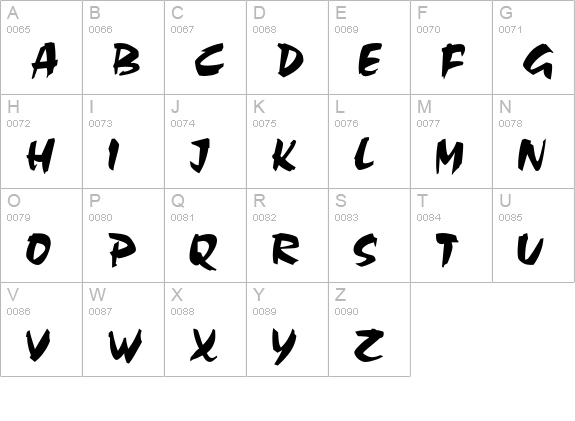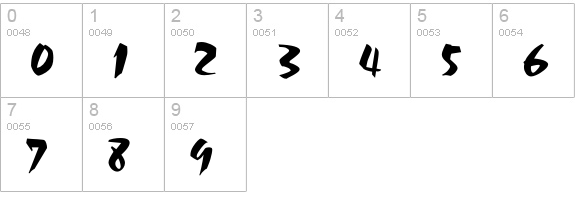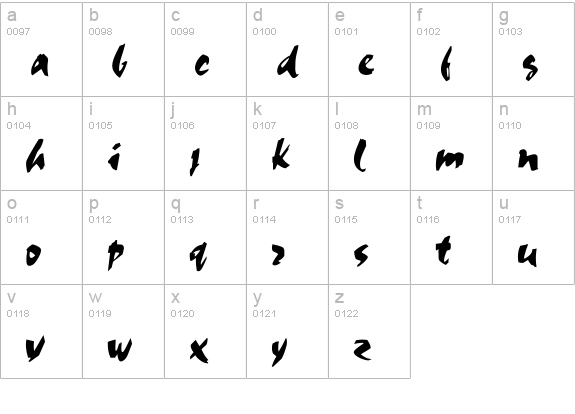
Acapulco Font Details
Acapulco font is a stunning display typeface that exudes elegance and sophistication. Its sleek and modern design makes it perfect for a wide range of projects, from branding to editorial design. With its unique and eye-catching letterforms, Acapulco font is sure to make your text stand out and leave a lasting impression. The best part? Acapulco font is completely free to download at FontsMarket.com. Whether you're a designer looking to add a touch of luxury to your work or a hobbyist wanting to experiment with a new typeface, Acapulco font is the perfect choice. Download it now and elevate your designs with this beautiful and versatile font.